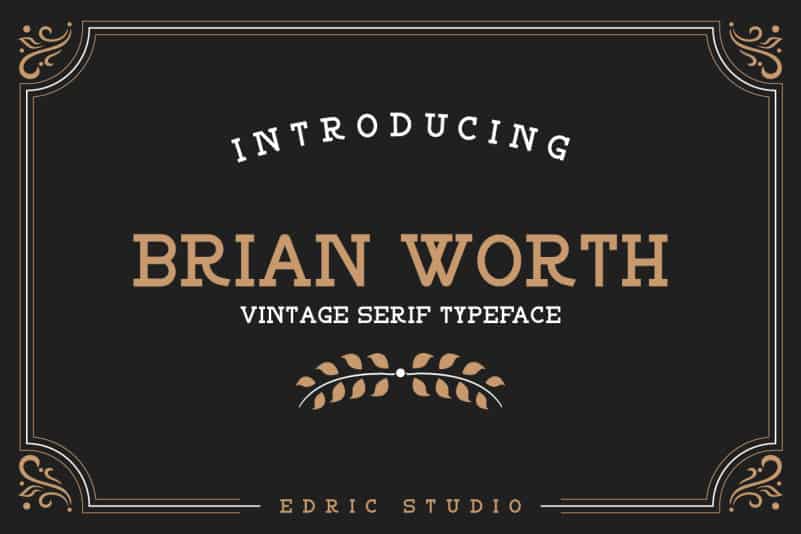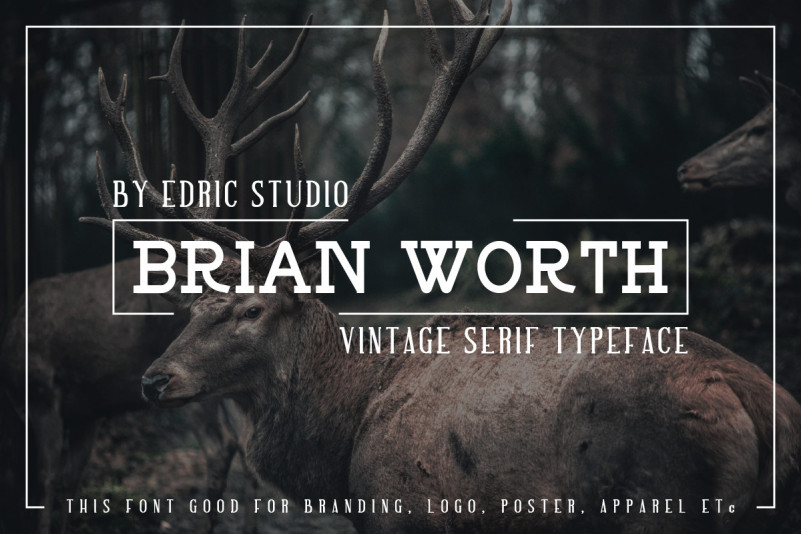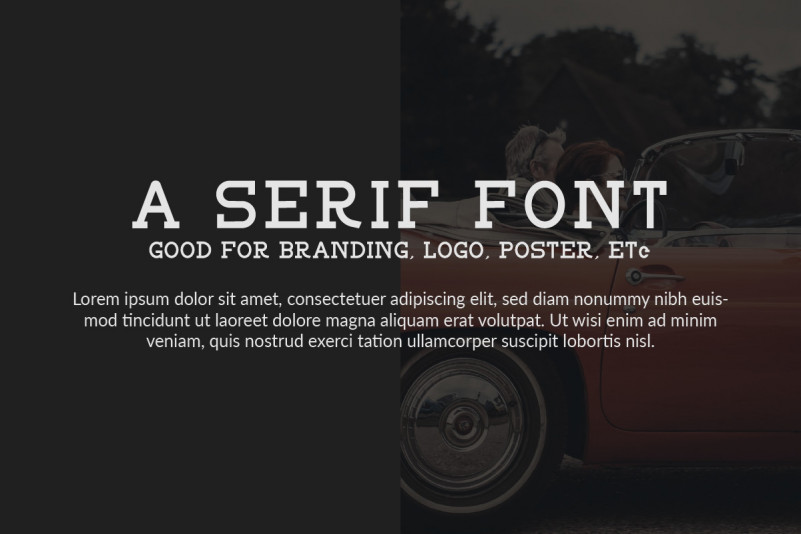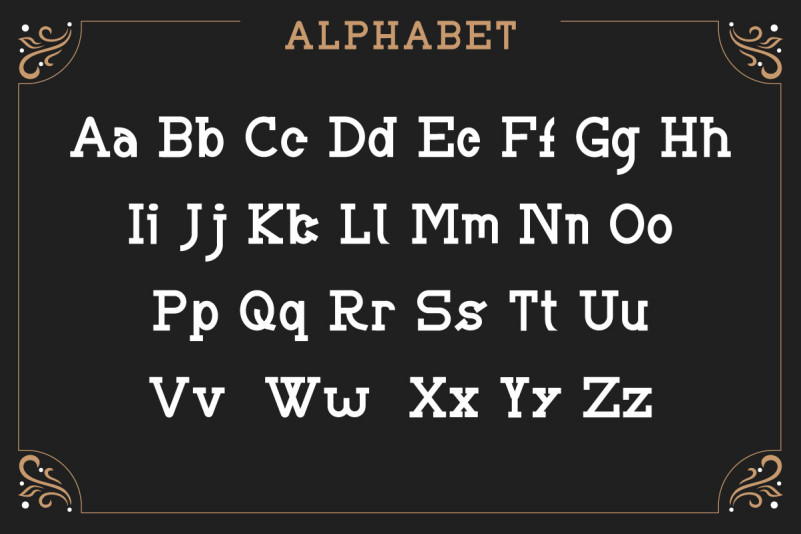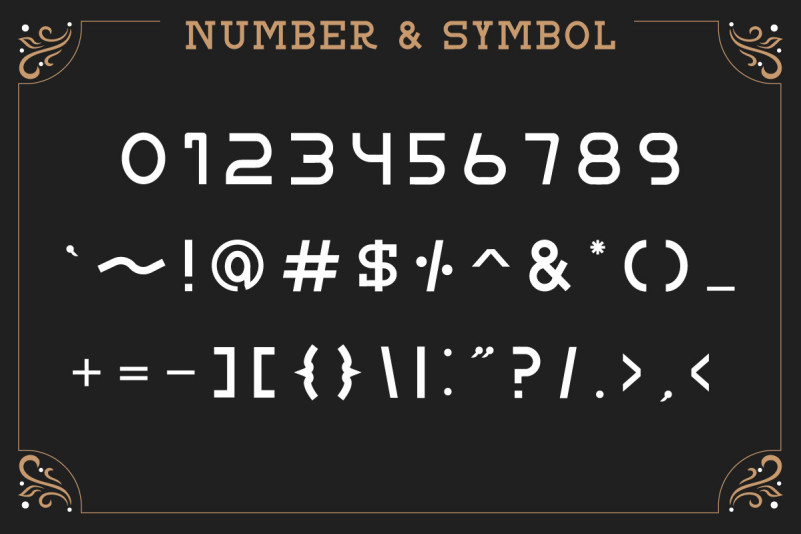
BRIAN WORTH Vintage Font
BRIAN WORTH Vintage Font A display serif font. Great for many things : cafe signage, food menu flyer, poster, label, sticker, even branding for a retro corporate logo brands.